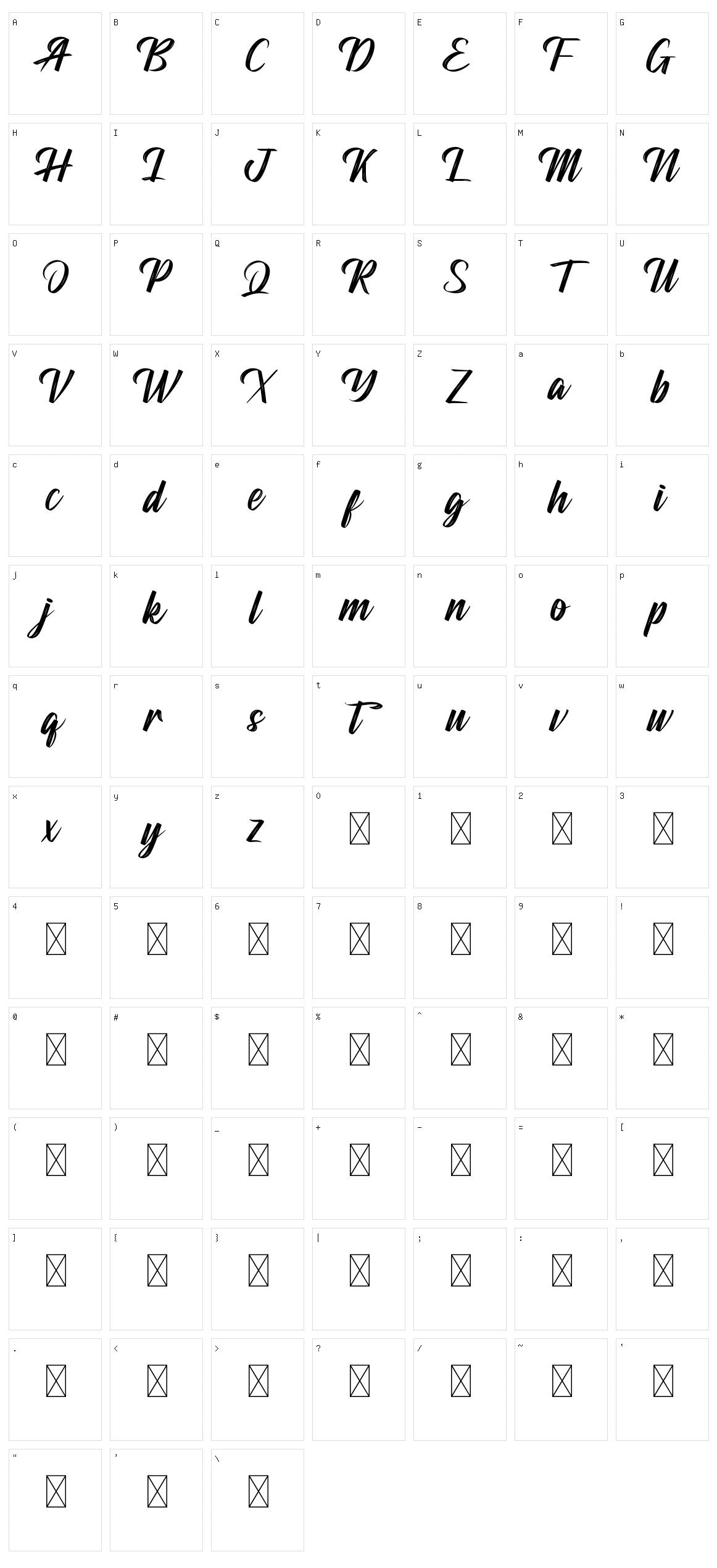
The free font Blandis is carefully designed by RaisProject, showcasing a thoughtful balance of creativity and usability and falls under the Script font style. When you download the ZIP file, it contains only 31.55 KB of font files, making it lightweight and quick to download. Please review the license details below to understand permitted usage and distribution rights. If license information is not available, we recommend using this font for personal projects only or contacting the author directly for commercial usage permissions.